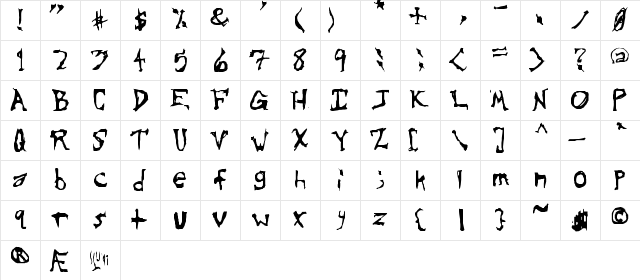
Sinister Plot Regular
Design Context for Sinister Plot
Sinister Plot is a composed and adaptable typeface that performs quietly and consistently across a wide range of design contexts.
Pro Tip: Use Sinister Plot in both headline and body roles to test its range before committing to a single application.